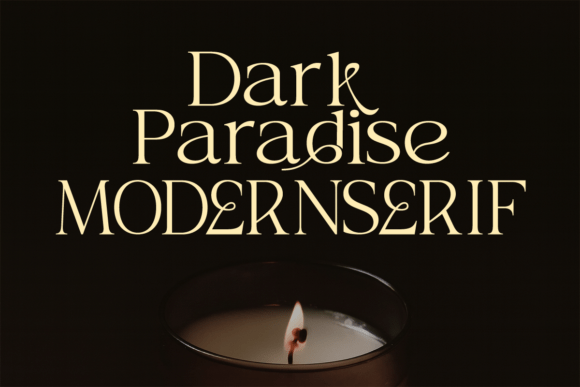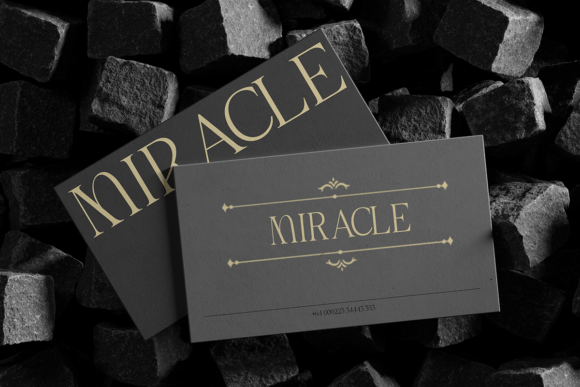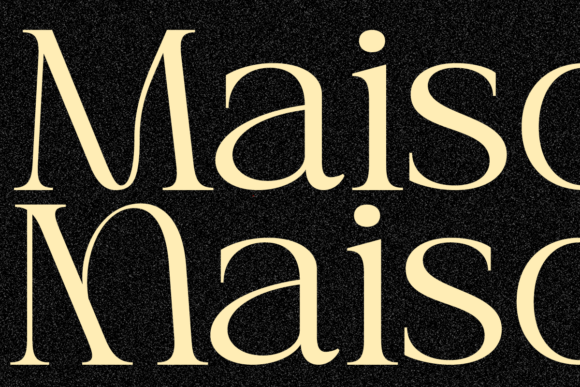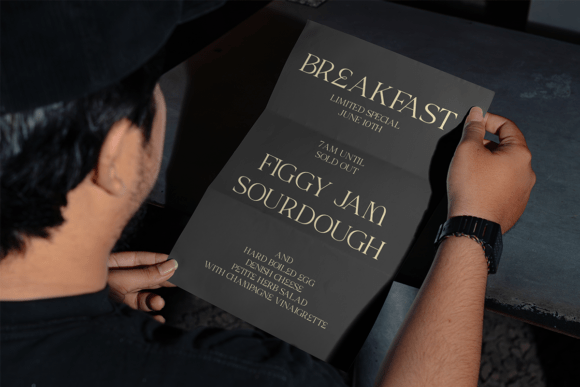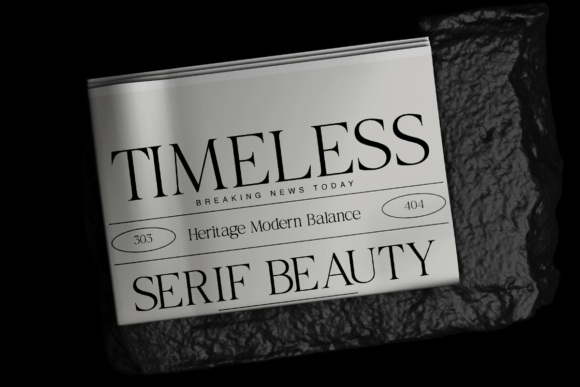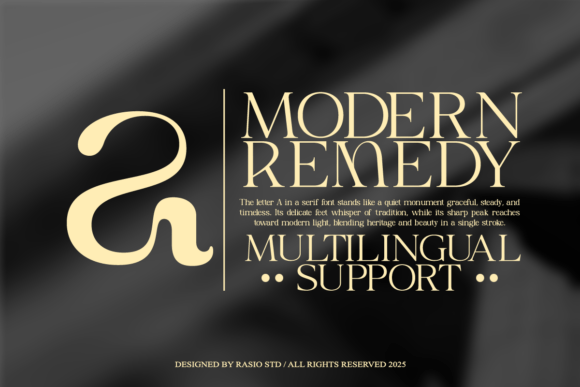
Introducing Ekegie Font: Elevate Your Typography with Elegance and Sophistication
In the world of typography, the right font can make all the difference in conveying the desired message and aesthetic. For designers and crafters seeking to add a touch of luxury and refinement to their projects, Ekegie Font is an exceptional choice. This modern decorative serif typeface is meticulously designed to bring elegance, sophistication, and artistic character to your typography, making it perfect for high-end applications.
What is Ekegie Font?
Ekegie is a refined modern decorative serif typeface crafted to elevate your typography with an air of elegance and sophistication. Its design is tailored for projects that demand refined serif typography to enhance visual identity. Whether you’re working on luxury branding, fashion editorials, magazine layouts, high-end packaging, wedding invitations, premium product branding, or creative display designs, Ekegie is the perfect fit.
Key Features of Ekegie Font
- Elegant Serif Design: Ekegie boasts a beautiful serif design that adds a touch of sophistication to any project.
- Modern Aesthetic: With its modern twist, Ekegie is perfect for contemporary designs that require a refined look.
- Artistic Character: The font’s artistic character makes it stand out, allowing designers to create unique and visually appealing typography.
- Versatility: Ekegie is versatile and can be used across various platforms and mediums, from digital to print.
Use Cases for Ekegie Font
Ekegie’s versatility makes it suitable for a wide range of applications. Here are some of the ideal use cases for this elegant typeface:
- Luxury Branding: Ekegie is perfect for luxury brands looking to establish a sophisticated and high-end visual identity.
- Fashion Editorials: The font’s elegant design makes it a great choice for fashion editorials, adding a touch of glamour and style.
- Magazine Layouts: Ekegie can be used to create visually appealing magazine layouts that exude sophistication and elegance.
- High-End Packaging: For premium products, Ekegie can help create packaging that reflects the product’s high quality.
- Wedding Invitations: The font’s refined design makes it suitable for wedding invitations, adding a touch of elegance to the special occasion.
- Premium Product Branding: Ekegie is ideal for branding premium products, helping to convey a sense of luxury and exclusivity.
- Creative Display Designs: The font can be used in creative display designs to add a touch of sophistication and artistic flair.
Why Choose Ekegie Font?
Choosing Ekegie Font for your project comes with several benefits:
- Unique Typography: Ekegie allows you to create unique and distinctive typography that sets your project apart.
- High-Quality Design: The font is designed with high-quality craftsmanship, ensuring that it looks great in any application.
- Easy to Read: Despite its decorative nature, Ekegie remains easy to read, making it functional as well as beautiful.
- Customizable: Ekegie can be customized to fit your project’s specific needs, offering flexibility in typography.
Ekegie Font is a versatile and elegant typeface designed to bring sophistication and artistic character to your typography. Its refined modern decorative serif design makes it perfect for a variety of applications, from luxury branding and fashion editorials to high-end packaging and creative display designs. By choosing Ekegie, designers and crafters can elevate their projects with a touch of elegance and exclusivity. Whether you’re looking to create a luxurious brand identity or simply want to add a touch of sophistication to your typography, Ekegie Font is an excellent choice.